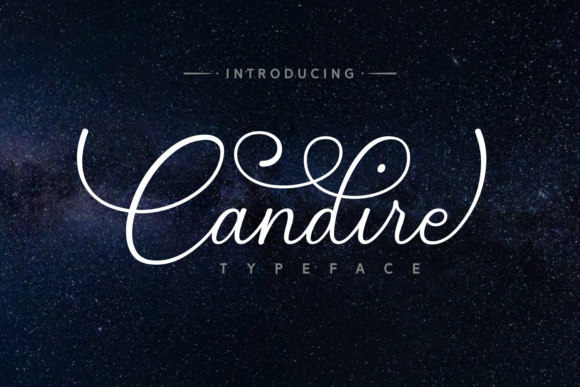
The Quest for Elegance: Discovering Candire Font
First Impressions: A Love Affair with Candire
Candire Font is a modern calligraphy font that exudes refinement and elegance. Its flowing lines and intricate details make it perfect for headlines and high-end designs. I was immediately drawn to its versatility and ability to adapt to different styles and designs.
- ✨ Elegant and refined: Candire Font is perfect for high-end designs, adding a touch of sophistication to any project.
- ✅ Versatile: This font adapts seamlessly to different styles and designs, making it a great addition to any design library.
- 💫 Beautifully crafted: The attention to detail in Candire Font is exceptional, with intricate lines and flourishes that elevate any design.
While Candire Font is exceptional, there are a few things to keep in mind:
- 🤔 Legibility at small sizes: While Candire Font is stunning at larger sizes, it can become a bit tricky to read at smaller sizes. Be sure to test it in your design before finalizing.
- ⚠️ Overuse: As with any elegant font, be careful not to overuse Candire Font. A little goes a long way, and too much can become overwhelming.
The Story Behind Candire Font
Candire Font was crafted by a talented type designer with a passion for calligraphy. Inspired by traditional copperplate engraving, Candire Font brings a touch of elegance and sophistication to any design. While the designer’s story may be fictional, the font’s beauty and versatility are very real.
| Font Name | Candire Font |
| Author | Andrian Dehasta |
Q: What is Candire Font best used for?
Candire Font is perfect for high-end designs, such as luxury branding, wedding invitations, and elegant packaging.
Q: Is Candire Font easy to read?
While Candire Font is elegant and refined, it can become tricky to read at smaller sizes. Be sure to test it in your design before finalizing.